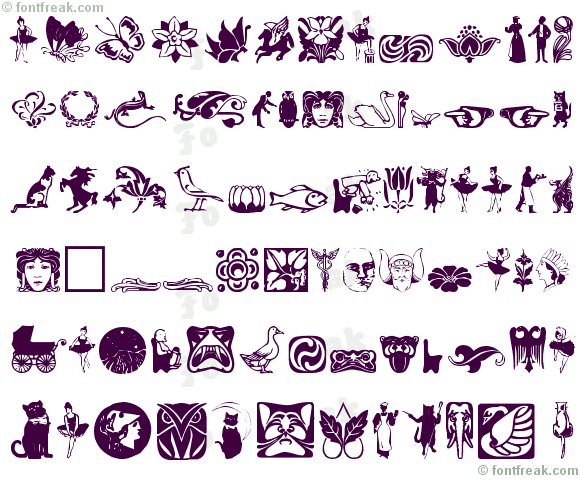
About Davys Dingbats 2
Davys Dingbats 2, crafted by David Rakowski, is a delightful collection of decorative dingbats that adds a unique flair to any design project. This font falls under the decorative category, featuring an array of whimsical and imaginative symbols that can enhance visual storytelling. Each character is meticulously designed, showcasing a playful aesthetic that balances creativity with clarity. The strokes are consistent in weight, ensuring that each icon maintains legibility while contributing to an overall charming appearance. The spacing is thoughtfully arranged, allowing for seamless integration into various layouts without overwhelming the viewer.
Ideal use cases for Davys Dingbats 2 include wedding invitations, where its enchanting symbols can embellish borders and highlight key information. It is also perfect for children’s book illustrations, adding a touch of fun that resonates with young audiences. Graphic designers can utilize this font in crafting eye-catching movie posters, where the distinctive dingbats can serve as thematic accents or visual cues. Restaurant menus can benefit from playful icons that represent different sections or highlight special dishes, making the dining experience more engaging. Content creators will find it useful for enhancing social media graphics, ensuring their posts stand out in a crowded digital landscape.
The target audience for Davys Dingbats 2 includes graphic designers, small business owners, and content creators seeking to elevate their work with unique visual elements. The playful nature of the font allows for creativity to flourish, making it an excellent choice for projects that aim to capture attention and spark joy.
What sets Davys Dingbats 2 apart is its versatility and charm, providing a fresh and engaging way to communicate ideas visually. Whether you're looking for a distinctive touch for a special event or a creative accent for your latest project, this font is a fantastic choice. Explore the possibilities with a Davys Dingbats 2 font free download and let your creativity shine.